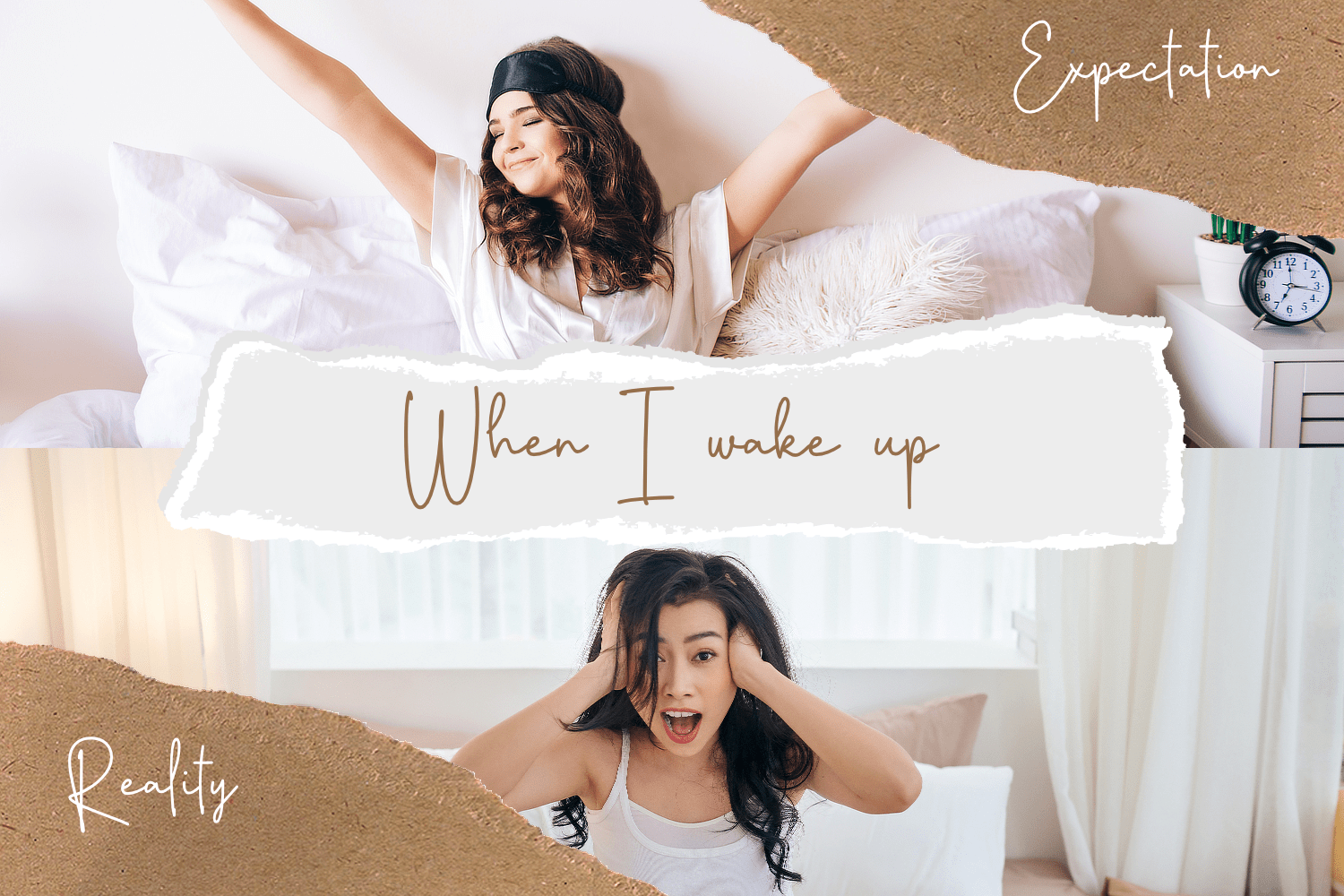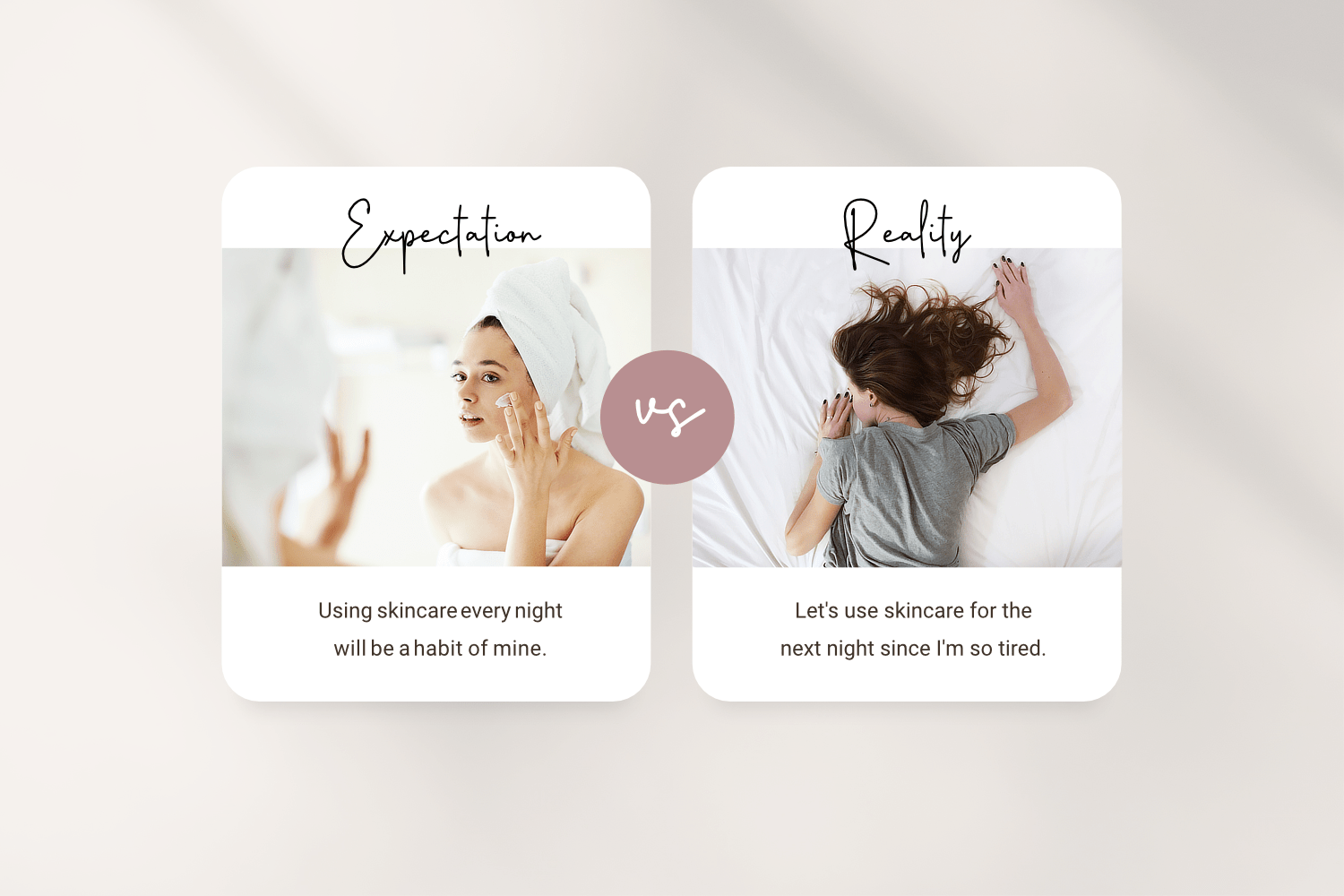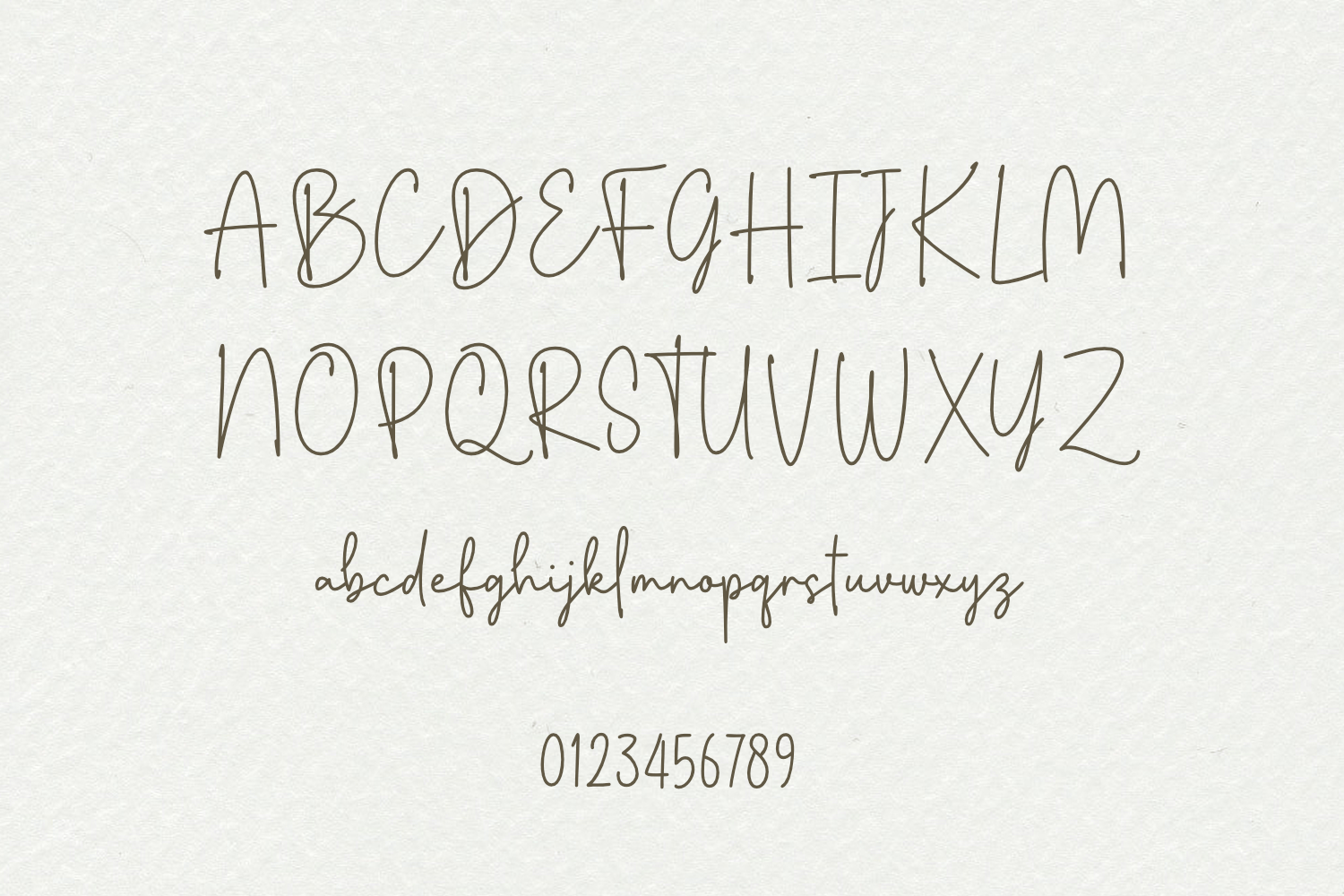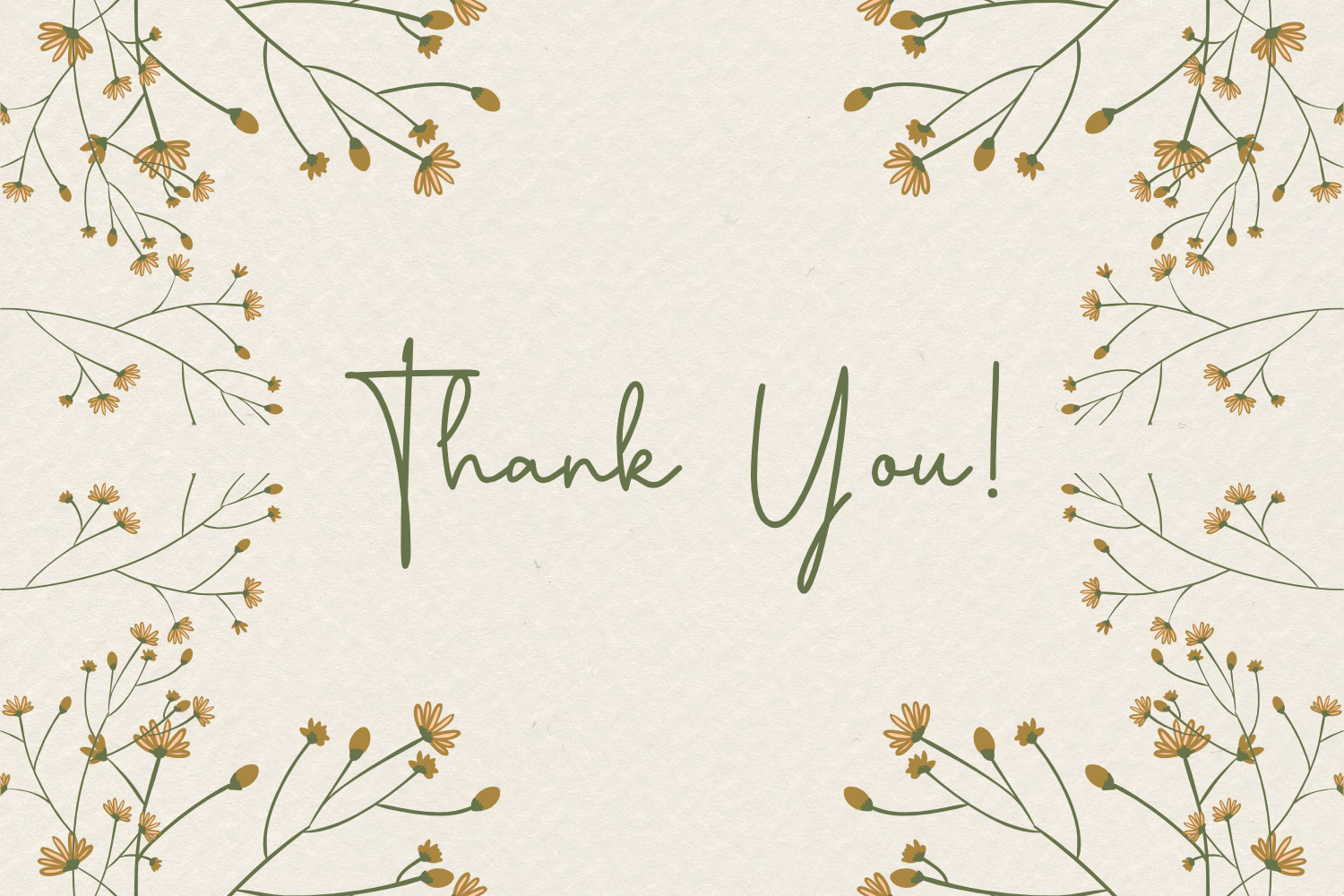
Flighty Handwritten Font
This is a monoline handwritten font. For those of you who are needing a touch of natural monoline handwritten Font, simple and creative for your designs, this font was created for you!